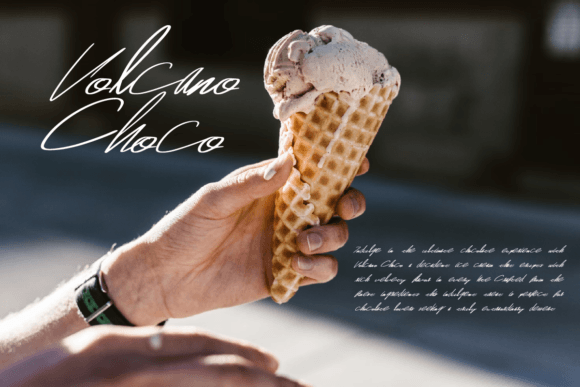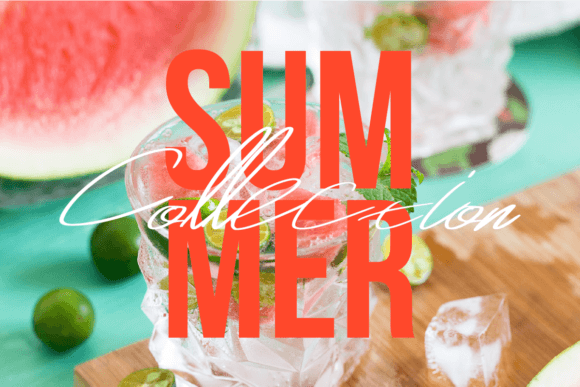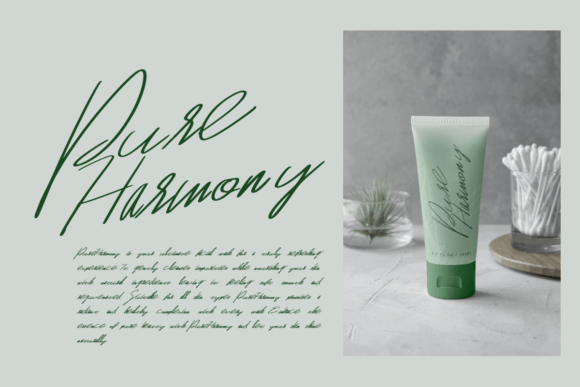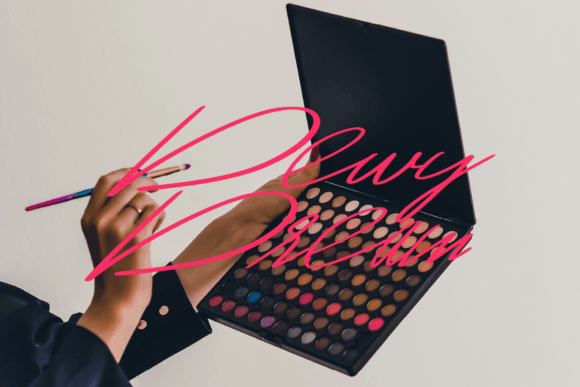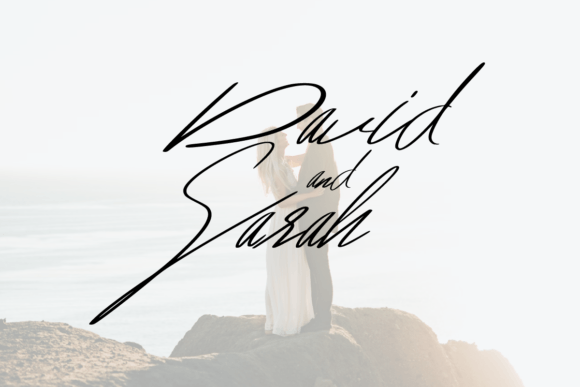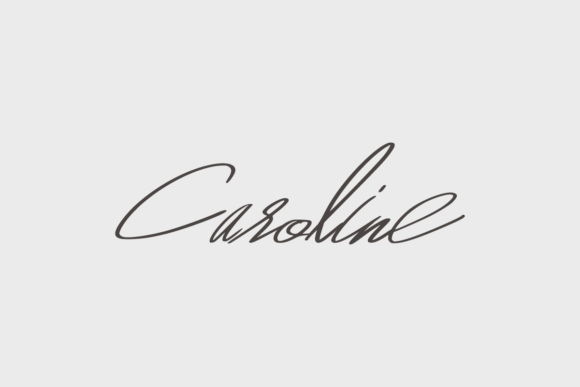
The Elegance of Delicate Font: A Designer’s Best Friend
I still remember the time I was working on a wedding invitation project, and my client asked me to create a sophisticated and elegant look. I spent hours scouring the internet for the perfect font, but nothing seemed quite right. That was until I stumbled upon Delicate, a beautifully crafted script font that exuded elegance and sophistication. From that moment on, Delicate became my go-to font for adding a touch of class to my designs.
An Honest Review of Delicate Font
- ✨ Elegant curves and intricate details that make it perfect for creating a sophisticated and timeless look
- ✅ Smooth and delicate strokes that add a sense of luxury and grace to any project
- 💫 Perfect for signatures, wedding invitations, and as a complementary font in design projects that require a touch of class
- 🎨 Highly versatile and can be used in a variety of applications, from digital designs to print materials
While Delicate is an amazing font, there are a few things to keep in mind:
- ⚠️ May not be suitable for body text due to its script nature and delicate strokes
- 🤔 Can be a bit challenging to read at small sizes, so it’s best used for headlines or titles
- Experiment with OpenType features, such as glyphs and stylistic alternates, to add more personality to your text
- Explore OpenType features, such as ligatures and stylistic sets, to add more flair to your text
The Story Behind Delicate Font
Delicate was designed by a team of typographers who wanted to create a font that would capture the essence of refined style and elegance. Inspired by traditional calligraphy and handwriting, Delicate features smooth and delicate strokes that add a touch of luxury and sophistication to any project.
| Author | firstype studio |
Q: What is Delicate font best used for?
A: Delicate font is best used for designs that require a touch of elegance and sophistication, such as wedding invitations, signatures, and luxury branding.
Q: Can I use Delicate font for body text?
A: While Delicate is a beautiful font, it’s not recommended for body text due to its script nature and delicate strokes. It’s best used for headlines or titles.
Q: Is Delicate font suitable for digital designs?
A: Yes, Delicate font is highly versatile and can be used in a variety of digital designs, from social media graphics to website headers.